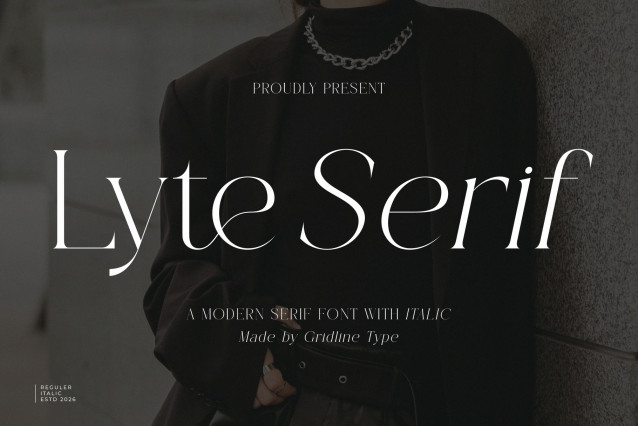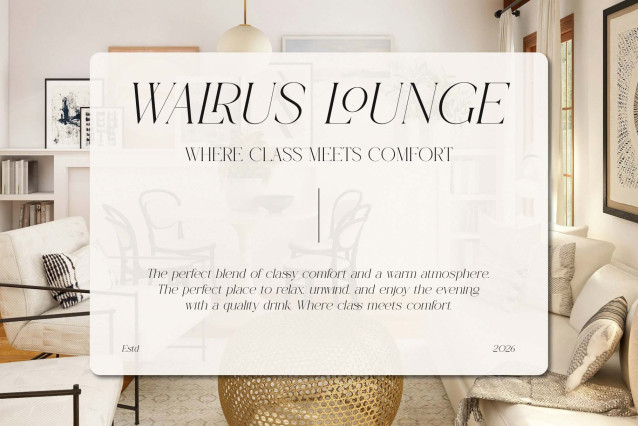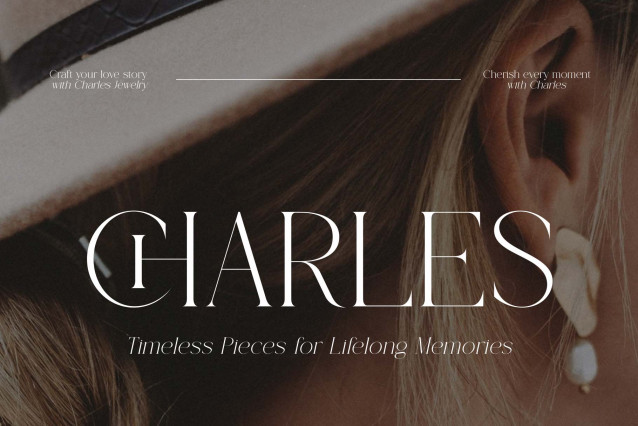
Lyte Serif Font
Introducing **Lyte Serif** the elegant, beautiful, and modern Serif. With its modern and minimalist look, Lyte Serif brings a luxurious, classy, ​​and clean style to your projects such as websites, modern logos, brand identities, social media quotes, wedding stationery, magazines, and more!
Lyte Serif features unique and classy capital letters A to Z and also comes with unique alternates making Lyte Serif a beautiful font that can be customized for various projects and jobs you want.
Lyte Serif is perfect for: logos, brands, wedding invitations, business cards, greeting cards, posters, magazines, social media, agenda prints, and websites.
* Uppercase and lowercase letters
* Multilingual Characters
* Numbers & punctuation
* ligature style (on some fonts)
* regular and italic font styles